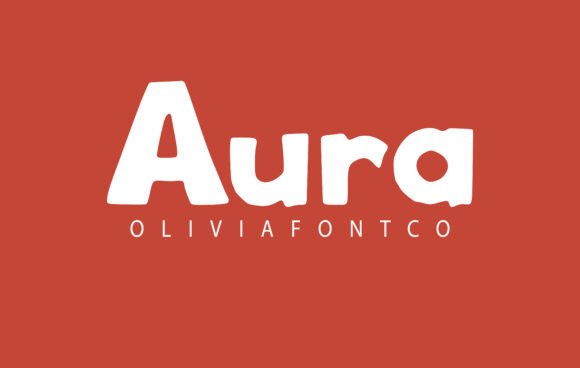
The Magic of Aura Font: Elevate Your Designs with a Romantic Touch
I’ll never forget the time I was working on a wedding invitation project, and my client asked me to create a bespoke font that would match the elegance and romance of their special day. I spent hours scouring the internet, trying out different fonts, but none seemed to capture the essence of what I was looking for. That’s when I stumbled upon Aura Font, and it instantly became my go-to choice. In this article, I’ll share with you why I’m obsessed with Aura Font and how you can make the most of its beautiful, handwritten charm.
An Honest Review of Aura Font
Aura Font is an authentic handwritten font with a romantic touch that’s expertly designed to be a true favorite among designers. Here’s what I love about it:
- ✨ Legibility: Aura Font is incredibly easy to read, making it perfect for both title and body text.
- ✅ Versatility: This font is suitable for a wide range of designs, from magazine headlines to social media posts, branding, wedding invitations, and more.
- 💕 Romantic touch: Aura Font has a unique, handwritten charm that adds a touch of elegance and sophistication to any design.
While Aura Font is an amazing font, it’s not perfect. Here are a few small quirks to keep in mind:
- 🤔 Limited multilingual support: Aura Font may not support all languages, so be sure to check the font’s specifications before using it for a multilingual project.
- ⚠️ Glyph limitations: While Aura Font has a wide range of glyphs, it may not have every special character you need. Be sure to review the font’s glyph set before using it.
- Experiment with OpenType features, such as Stylistic Alternates and Glyphs, to add more personality to your text.
- Take advantage of OpenType features, such as Swashes and Stylistic Sets, to add more flair to your text.
The Story Behind Aura Font
Aura Font was designed by a team of typographers who wanted to create a font that would capture the essence of romance and elegance. Inspired by traditional calligraphy and handwritten scripts, Aura Font is a modern take on classic typography. The design team poured their hearts into creating a font that’s both beautiful and functional, making it perfect for designers and crafters alike.
Q: Is Aura Font suitable for body text?
A: Yes, Aura Font is legible and suitable for body text. However, it’s recommended to use a smaller font size (around 10-12 points) to ensure optimal readability.
Q: Does Aura Font support multilingual languages?
A: Aura Font has limited multilingual support. Be sure to check the font’s specifications and glyph set before using it for a multilingual project.
Q: Can I use Aura Font in my social media graphics?
A: Absolutely! Aura Font is perfect for social media graphics, and its elegant, handwritten charm is sure to make your posts stand out.